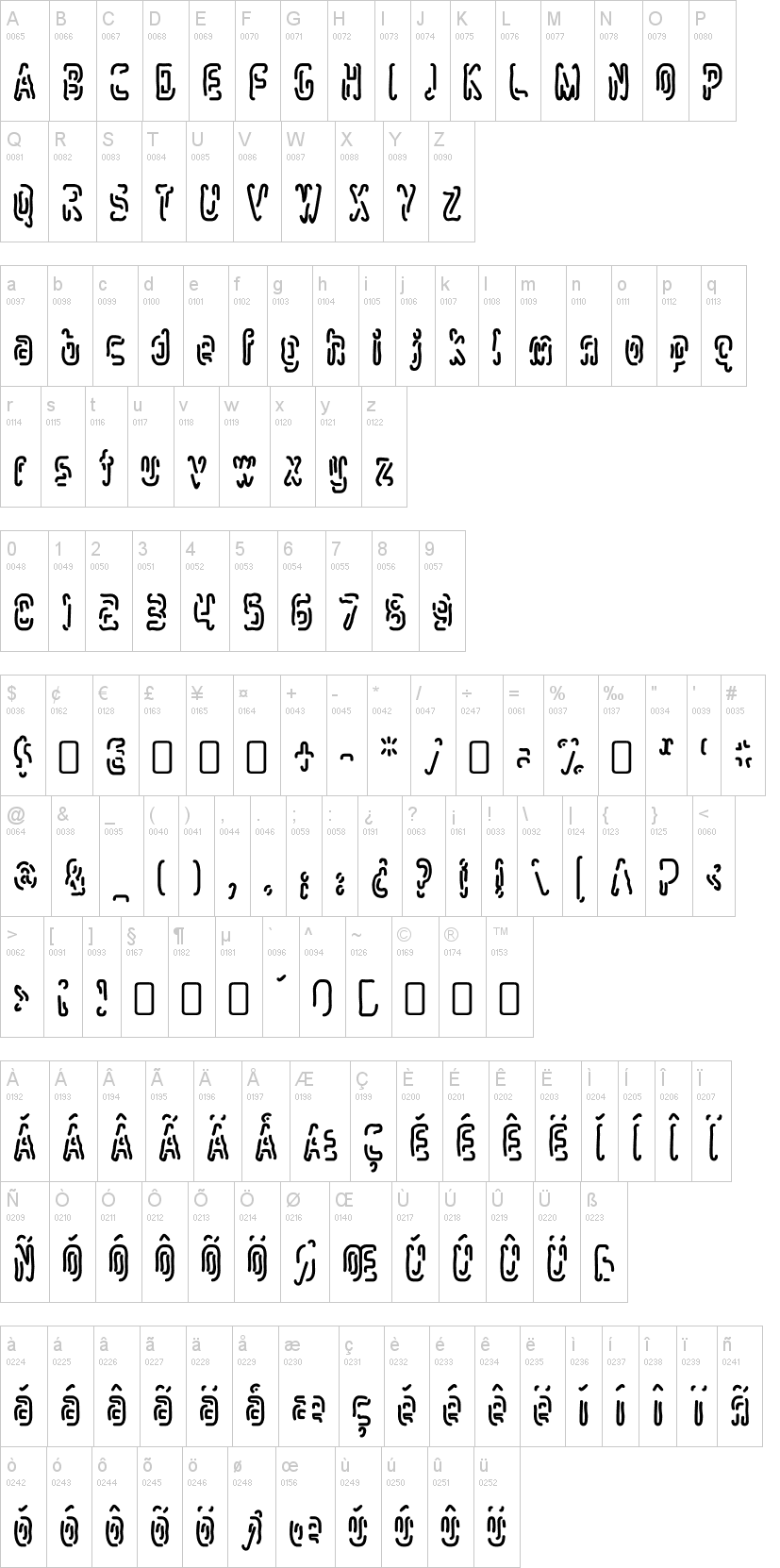
Шрифт Mlurmlry
Mlurmlry is a grubby, worm-trail headliner ideally suited to bacterial/viral themes. Don't forget to read the files inside the zip for details. Updated in 2012.